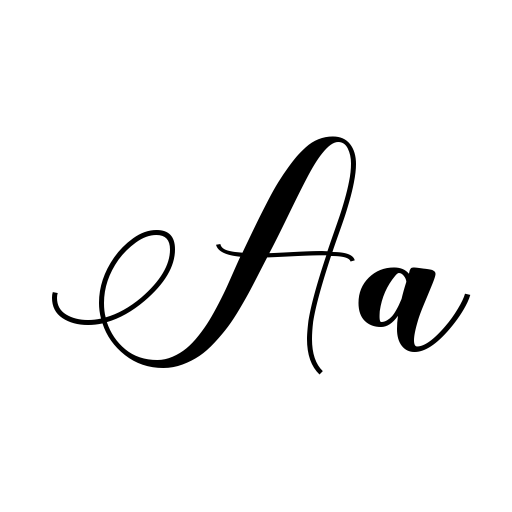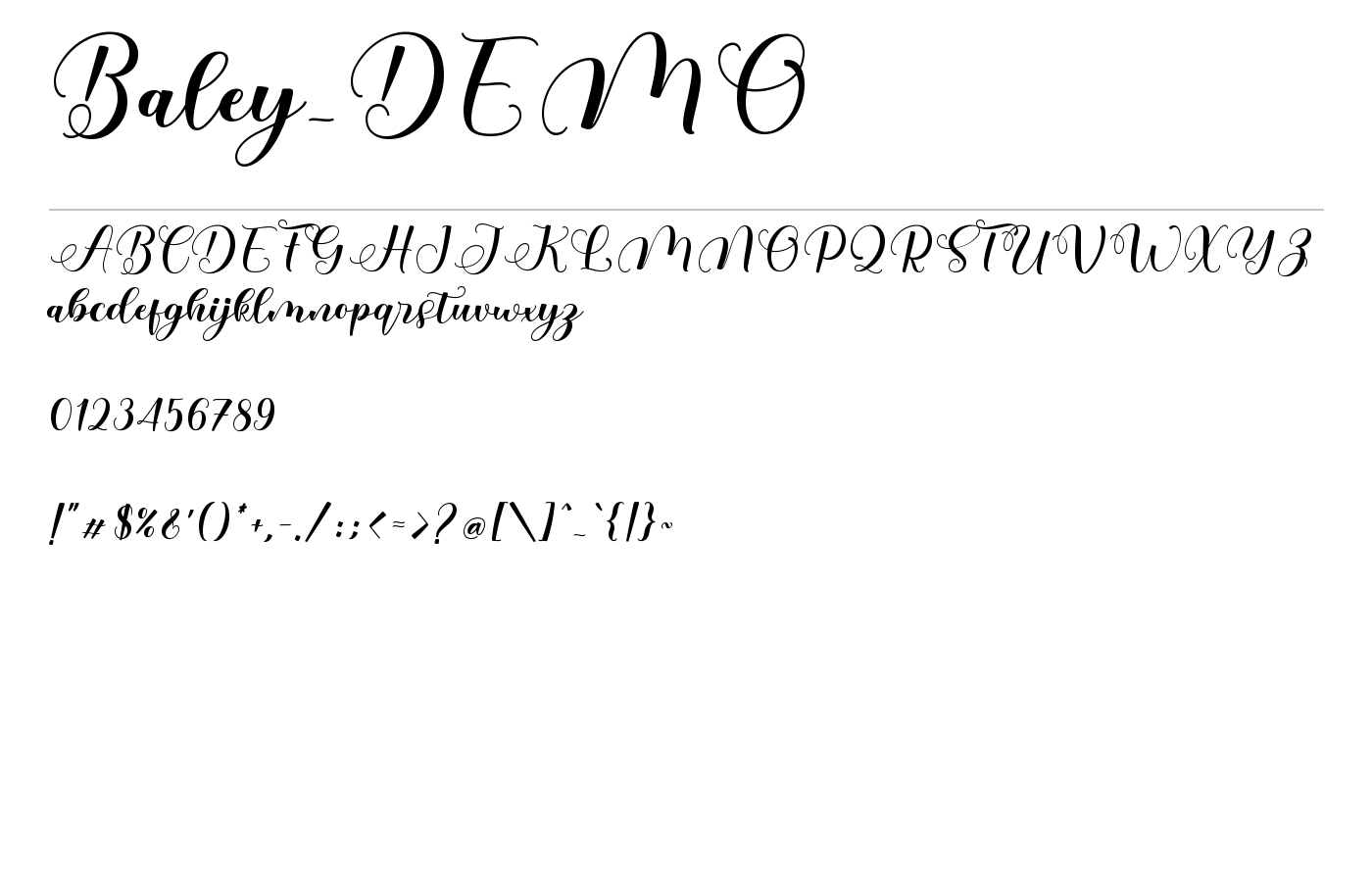
Baley_DEMO is an elegant script font characterized by its flowing, decorative letterforms with delicate swashes and curls, evoking a sense of sophistication and charm. Its medium weight and varying stroke contrast make it perfect for luxurious branding, wedding invitations, and stylish headlines where a touch of refinement is desired. This font works best in display settings, adding a graceful and artisanal flair to design projects.
Baley_DEMO Font
About Baley_DEMO Font